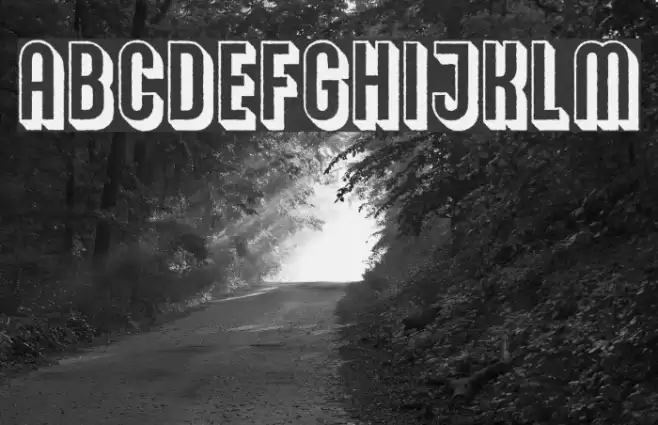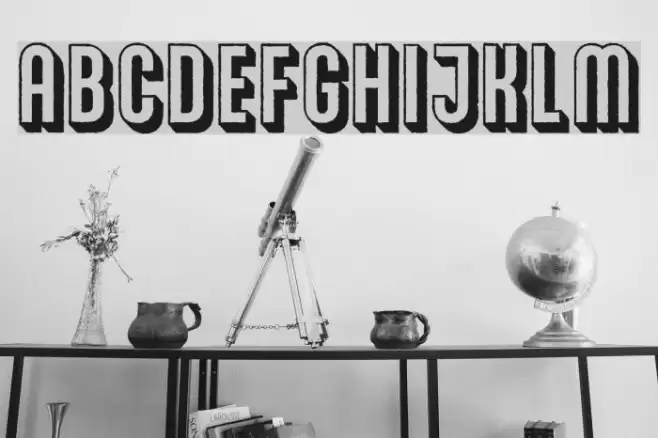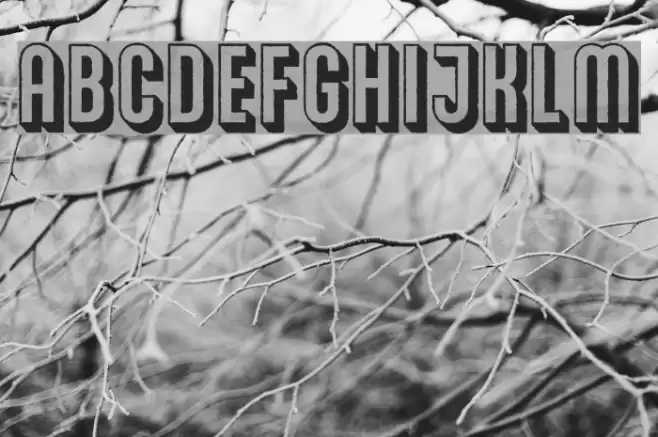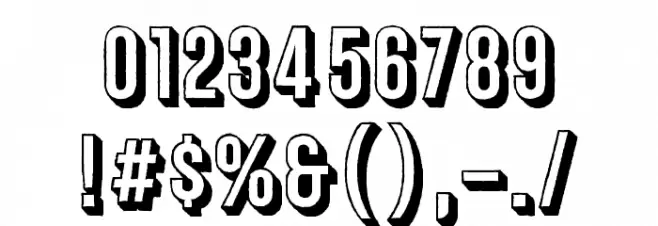
Mancunia-Outline Font
Mancunia-Outline Description
This font features a bold, three-dimensional outline style that gives each character a striking and impactful appearance. The uppercase letters are designed with a shadow effect that adds depth and a sense of movement, making them stand out prominently. The numbers and special characters share this same bold outline and shadow, ensuring consistency across all glyphs. The font's design is reminiscent of vintage signage, with a modern twist that makes it suitable for contemporary use. Its unique style is both eye-catching and versatile, making it ideal for projects that require a strong visual impact.
A bold, three-dimensional outline font with a vintage yet modern appeal from Uncategorized fonts.
- Overall Style: Vintage, Modern